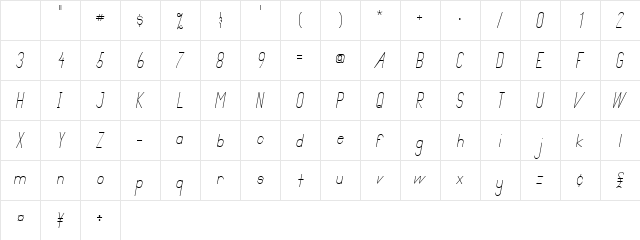
Complete Primadona Italic Regular glyph index. Displaying only characters natively supported by Primadona Italic Regular font.
Primadona Italic is a composed and adaptable typeface that performs quietly and consistently across a wide range of design contexts. The slanted form adds forward momentum and visual energy.
Pro Tip: Use Primadona Italic for emphasis, pull quotes, and subheadings where its slanted energy can add rhythm to the layout.